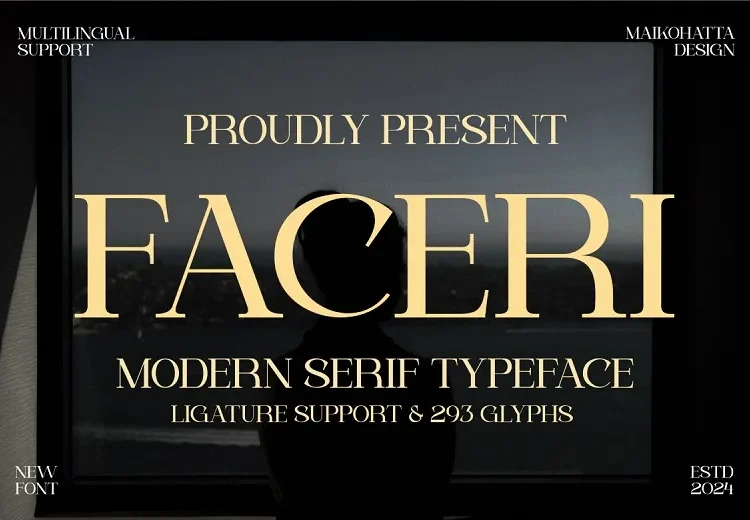
Faceri Font
Faceri is a modern serif font inspired by maikofarazhatta, designed to offer a sophisticated and contemporary look. It features well-balanced strokes that strike the perfect equilibrium between thickness and thinness, ensuring both aesthetic appeal and readability. This contemporary serif typeface is characterized by its elegant contrast between thick and thin lines, providing a slightly bolder presence compared to traditional serif styles.
The design of Faceri combines classic serif elements with a modern touch, making it an excellent choice for a variety of applications. Its refined proportions and clean lines contribute to a professional and polished appearance, ideal for use in branding, editorial design, web content, and more. Faceri’s versatility allows it to enhance both print and digital projects, adding a touch of elegance and readability to any design.